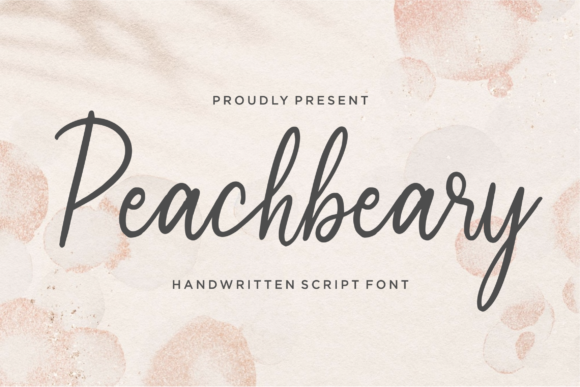
Unleash the captivating charm of Peachbeary Font, a stunning creation from qwrtypefoundry that will envelop your designs in an aura of elegance. This exquisite script font family is meticulously crafted with flowing lines and graceful curves, exuding a timeless charm that is sure to leave a lasting impression.
Peachbeary Font is not just a collection of letters; it's an artistic masterpiece that breathes life into your words. Its elegant strokes and delicate flourishes will transform your projects into captivating expressions of creativity and sophistication. Whether you're a seasoned designer or a passionate hobbyist, Peachbeary Font will elevate your work to new heights of visual appeal.
Picture the allure of a wedding program adorned with Peachbeary Font's graceful script. Its timeless beauty will add a touch of romance and elegance to this special occasion, leaving a lasting impression on your guests. The font's flowing lines will guide their eyes through the program, creating a truly memorable experience.
Step into the world of product packaging and branding, where Peachbeary Font reigns supreme. Its versatility and charm will captivate your customers, drawing them in with its distinctive appeal. From sleek product labels to eye-catching logos, Peachbeary Font has the power to transform ordinary products into objects of desire.
Unleash your creativity on magazine covers and social media platforms with Peachbeary Font as your secret weapon. Its elegant curves and playful spirit will bring your designs to life, capturing the attention of your audience and leaving them spellbound. Express yourself freely, let your imagination soar, and watch as Peachbeary Font weaves its magic, transforming your words into visual masterpieces.
Peachbeary Font is more than just a font; it's an experience. Its ability to evoke emotions and create a lasting impact is truly remarkable. Trust in Peachbeary Font to elevate your designs, whether it's a heartfelt wedding invitation, a groundbreaking brand identity, or a captivating social media post.
With Peachbeary Font, the possibilities are endless. Its versatility knows no bounds, and its elegance is undeniable. Embrace the beauty of handwritten artistry and let Peachbeary Font guide you on a creative journey like no other. Discover the limitless potential that awaits you and unlock the true power of visual communication.